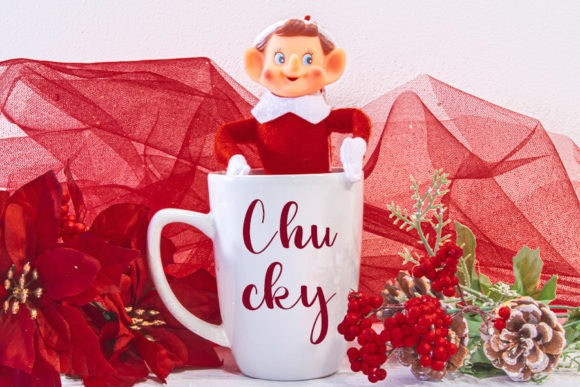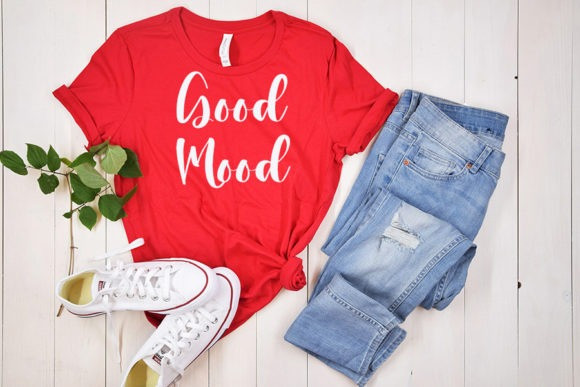
September Font
September Script Font is a well-balanced, cheery and delicate script font. Whether you’re looking for fonts for Instagram or calligraphy scripts for DIY projects, this font will turn any creative idea into a true piece of art!